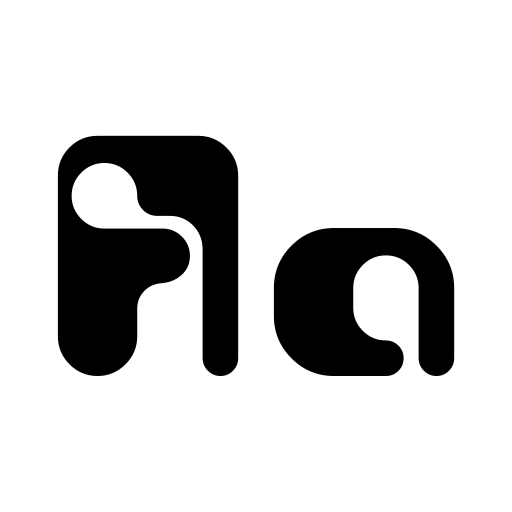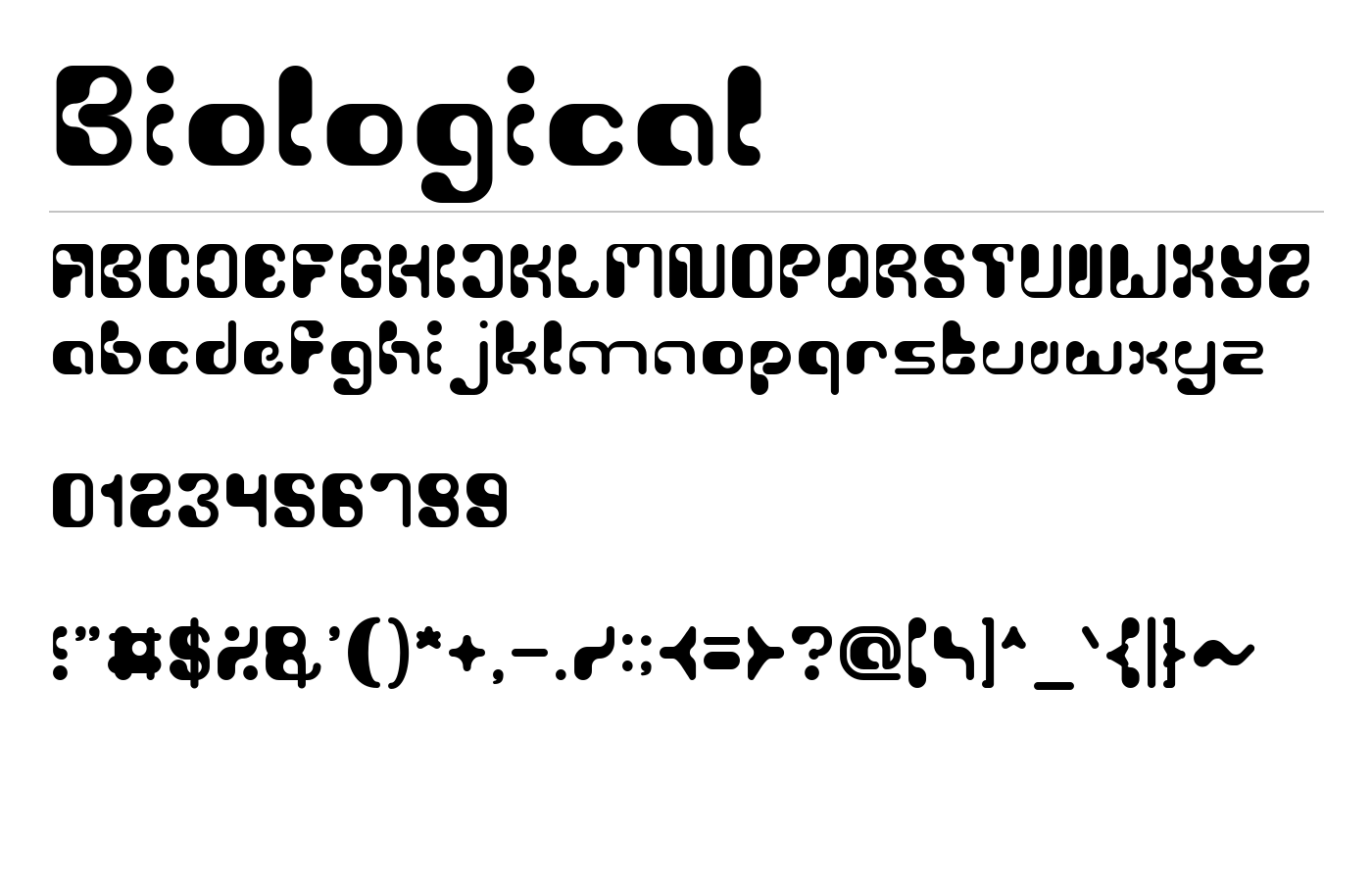
Biological Font is a bold, geometric sans serif with a playful and futuristic feel, characterized by its rounded corners and unique, connected shapes that resemble cellular structures or organic forms. Its solid weight and even stroke contrast create a visually striking yet readable style ideal for creative projects, tech branding, or science-themed designs. This font works best in logos, headlines, and posters where a distinctive, modern look can make a memorable impact.
Biological Font
About Biological Font